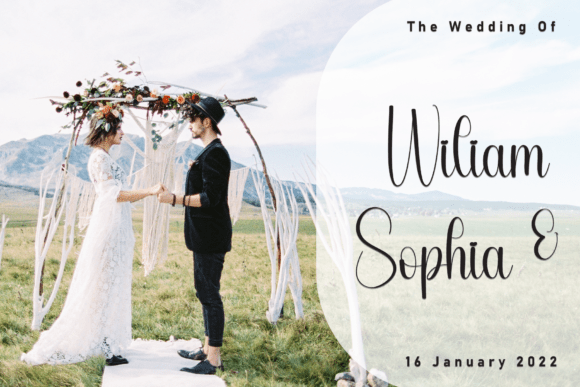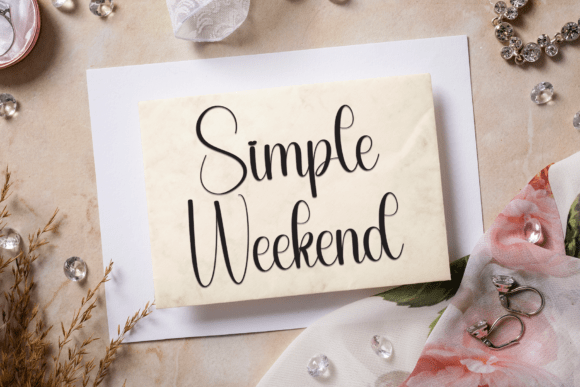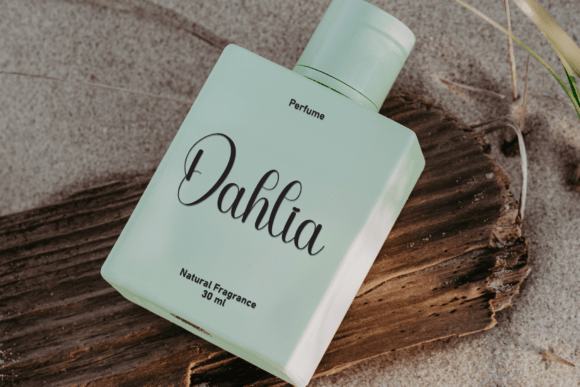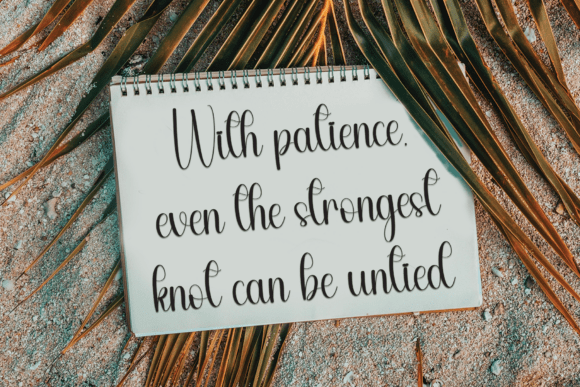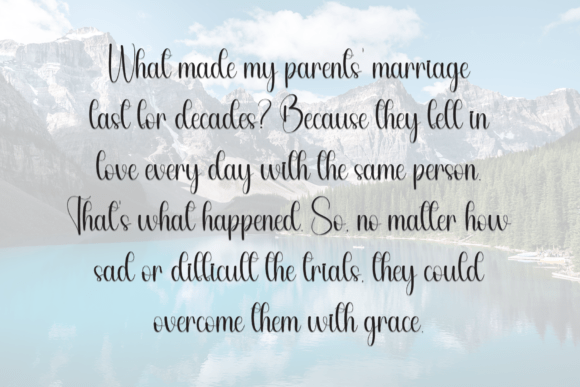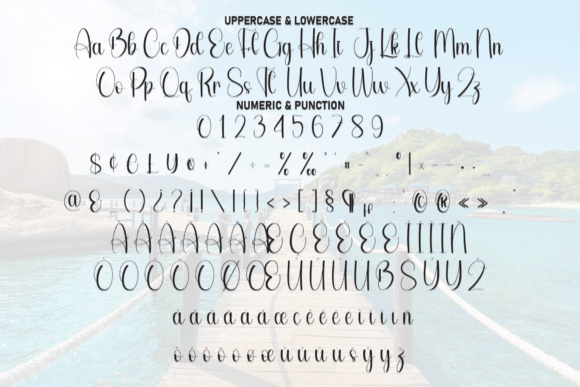
Discover the Delightful World of “Sweet and Friendly” – A Handwritten Display Font
Have you ever been in the midst of working on a design project, and suddenly, you’re stuck on finding the perfect font to bring your vision to life? I recall a recent experience where I was tasked with creating a whimsical wedding invitation for a client’s special day. The challenge was to convey a sense of cheerfulness, zest, and youthful wonder through typography. That’s when I stumbled upon “Sweet and Friendly,” a captivating handwritten display font that instantly resonated with the project’s requirements.
A Personal Review of “Sweet and Friendly”
- ✅ The font’s ability to evoke a sense of euphoria and purity through its detailed strokes is truly remarkable.
- ✅ Its versatility makes it an excellent addition to any creative suite, suitable for various design projects, such as wedding invitations, greeting cards, and more.
- ✅ The “Sweet and Friendly” font radiates a magnetizing pull and soothing warmth, effortlessly enriching your creative endeavors.
- ✅ Its modern yet lighthearted flair captures a positive, warm vibe that compels engagement.
- ⚠️ As with many handwritten fonts, “Sweet and Friendly” may not be the best choice for body text or lengthy content due to its decorative nature.
- ⚠️ Some users may find that the font’s playful allure might not be suitable for more formal or corporate design projects.
- Experiment with the font’s OpenType features, such as glyphs and stylistic alternates, to add more personality to your design.
The Backstory Behind “Sweet and Friendly”
The “Sweet and Friendly” font was inspired by the joy and wonder of childhood. Its creator aimed to craft a typeface that would evoke a sense of happiness and playfulness, while maintaining a level of sophistication and elegance. The result is a font that is both whimsical and refined, making it perfect for a wide range of design projects.
| What is the best way to use “Sweet and Friendly” in my designs? | The best way to use “Sweet and Friendly” is to incorporate it into designs that require a touch of whimsy and playfulness, such as wedding invitations, greeting cards, or children’s books. |
| Is “Sweet and Friendly” suitable for body text? | No, “Sweet and Friendly” is a decorative font and may not be the best choice for body text or lengthy content due to its playful and whimsical nature. |